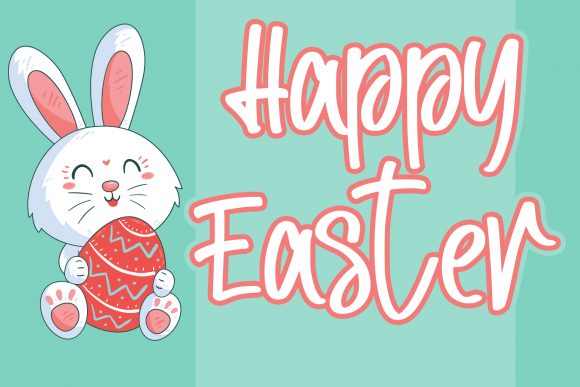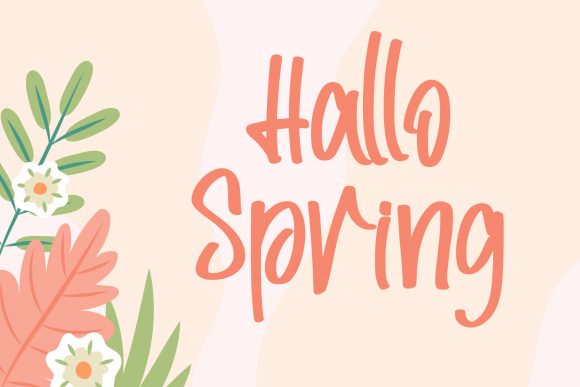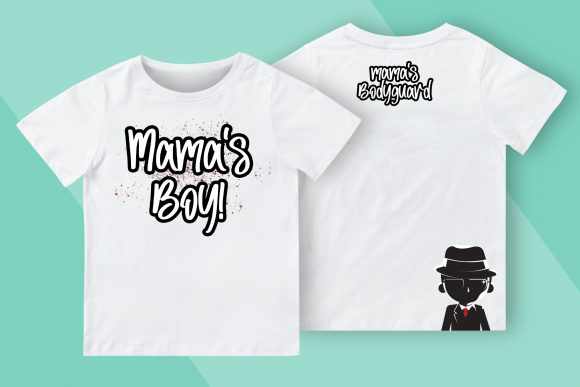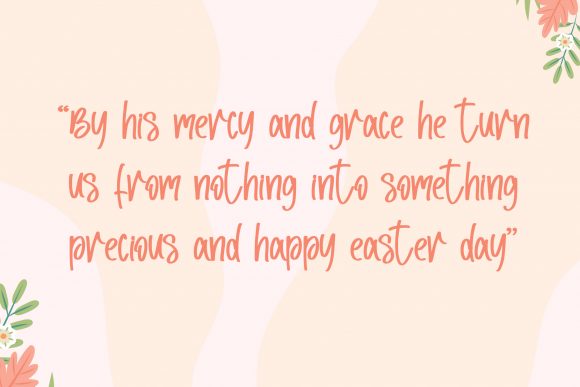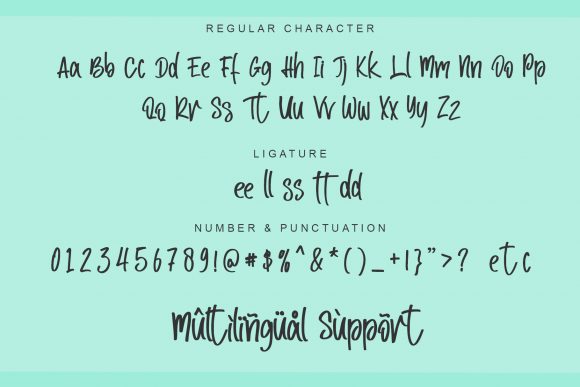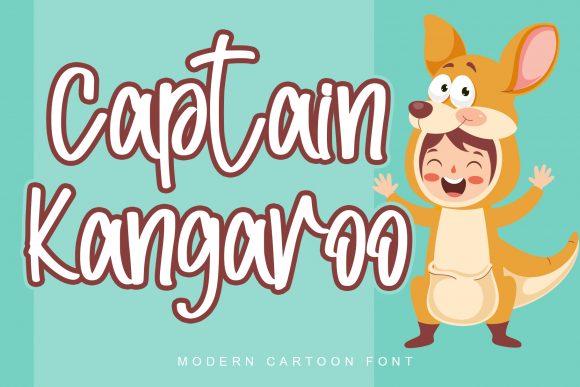
Introducing Captain Kangaroo Font: The Ultimate Choice for Friendly and Whimsical Designs
Are you a designer or crafter looking for a font that exudes warmth, friendliness, and playfulness? Look no further than the Captain Kangaroo Font! This adorable handwritten font is perfect for creating cartoon-related designs, children’s games, quotes, titles, brand names, book covers, posters, and any other creation that requires a touch of beauty and innocence.
What Makes Captain Kangaroo Font So Special?
Captain Kangaroo Font is a cute and sweet handwritten font that boasts an incredibly friendly feel. Its unique and charming letterforms are designed to evoke a sense of nostalgia and playfulness, making it an ideal choice for designers and crafters who want to create engaging and captivating designs. Whether you’re working on a project for kids or adults, this font is sure to bring a smile to your audience’s faces.
Key Features of Captain Kangaroo Font
- Cute and Sweet Handwritten Style: Captain Kangaroo Font features a beautiful, handwritten style that’s perfect for creating friendly and approachable designs.
- Incredibly Friendly Feel: The font’s unique letterforms and gentle curves give it a warm and welcoming feel that’s hard to resist.
- Versatile and Adaptable: Whether you’re designing for kids or adults, Captain Kangaroo Font is versatile enough to adapt to any style or theme.
- Perfect for Cartoon-Related Designs: The font’s playful and whimsical nature makes it an ideal choice for cartoon-related designs, children’s games, and other playful projects.
Use Cases for Captain Kangaroo Font
Captain Kangaroo Font is a versatile font that can be used in a wide range of design projects, including:
- Children’s Book Covers: Create engaging and eye-catching book covers that will appeal to kids and parents alike.
- Cartoon-Related Designs: Bring your cartoon characters to life with a font that’s playful, fun, and full of personality.
- Posters and Flyers: Use Captain Kangaroo Font to create colorful and attention-grabbing posters and flyers that will stand out from the crowd.
- Brand Names and Logos: Give your brand a friendly and approachable feel with a font that’s both unique and memorable.
- Quotes and Titles: Add a touch of elegance and sophistication to your quotes and titles with a font that’s both beautiful and easy to read.
Why Choose Captain Kangaroo Font?
With so many fonts to choose from, why should you choose Captain Kangaroo Font? Here are just a few reasons why this font stands out from the rest:
- Unique and Playful Design: Captain Kangaroo Font features a unique and playful design that’s sure to capture your audience’s attention.
- Easy to Read: Despite its playful nature, Captain Kangaroo Font is easy to read and understand, making it perfect for body text and headlines.
- Highly Versatile: This font is highly versatile and can be used in a wide range of design projects, from children’s books to posters and flyers.
In conclusion, Captain Kangaroo Font is a fantastic choice for designers and crafters who want to create friendly, playful, and engaging designs. With its unique and charming letterforms, incredibly friendly feel, and versatility, this font is perfect for a wide range of design projects. Whether you’re working on a children’s book, cartoon-related design, or poster, Captain Kangaroo Font is sure to bring a touch of beauty and whimsy to your creations.